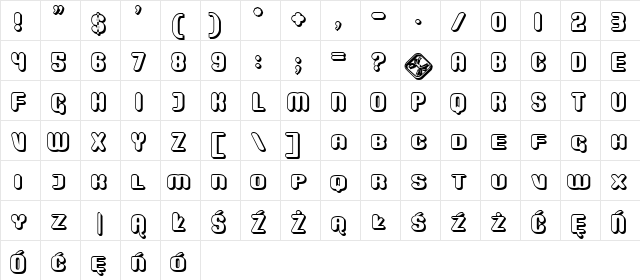
Monster Shadow Regular
Design Context for Monster Shadow Typeface
Monster Shadow is built around its visual character rather than neutral utility — its distinctive forms are designed to make an impression at display sizes.
Font Pairing: Pair with a clean neutral sans-serif for body copy to let Monster Shadow's character lead without overwhelming the composition.
Pro Tip: Use Monster Shadow exclusively at display sizes — it was designed to be seen, not read at length. Let a neutral companion handle body copy.